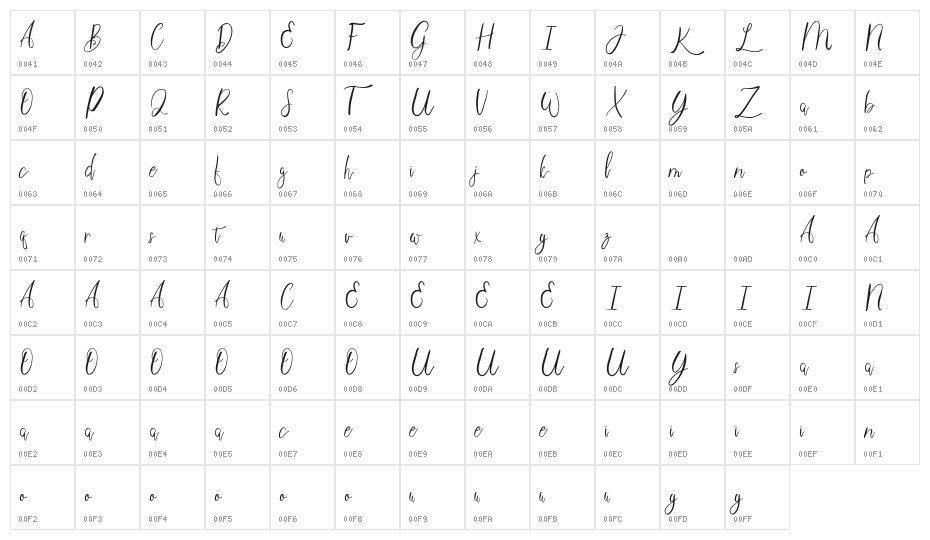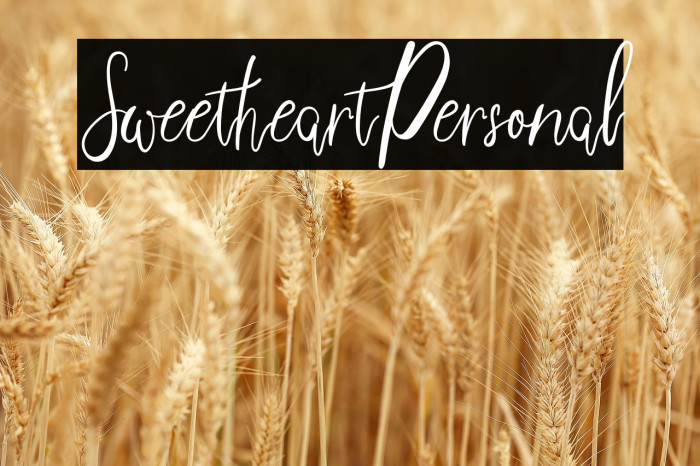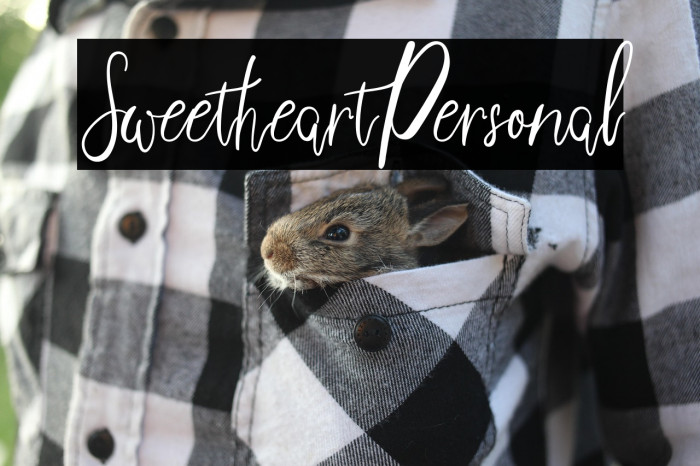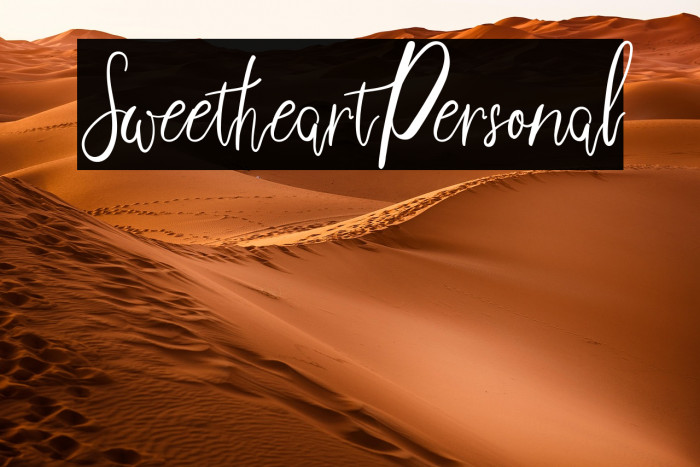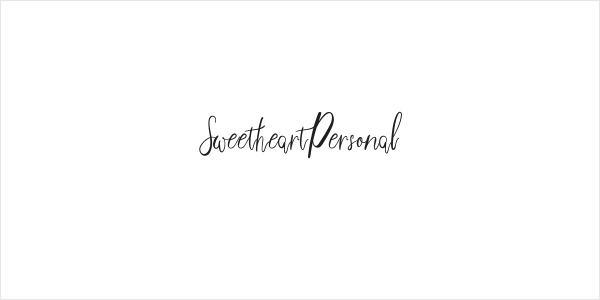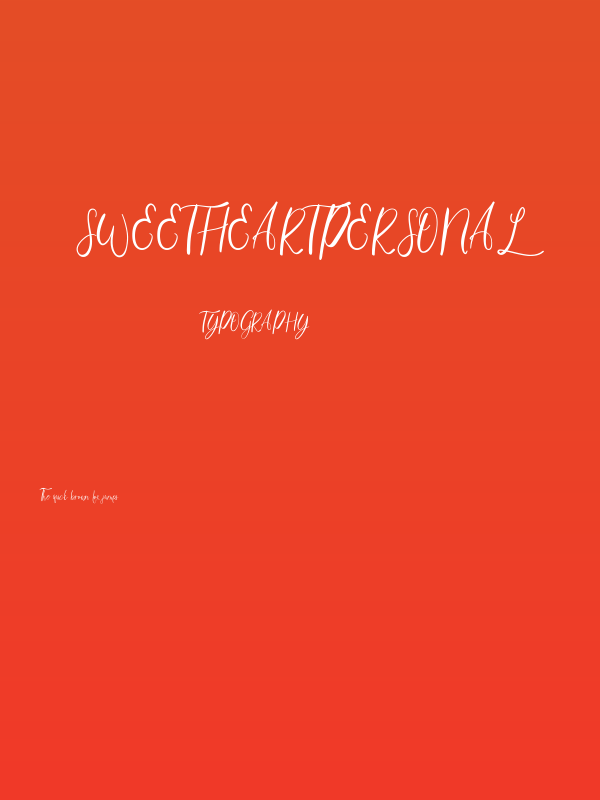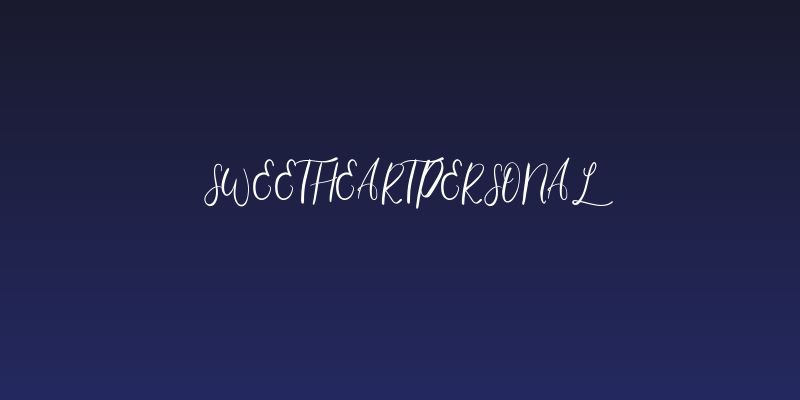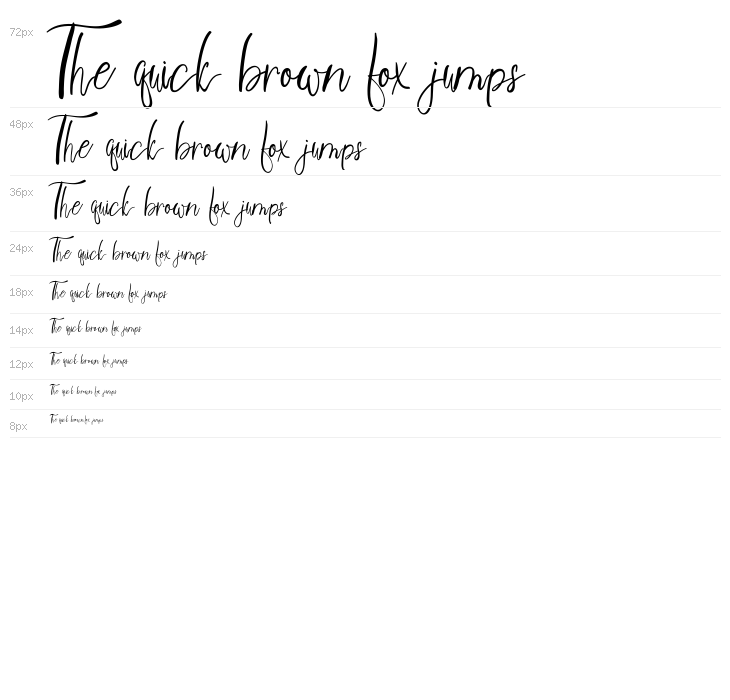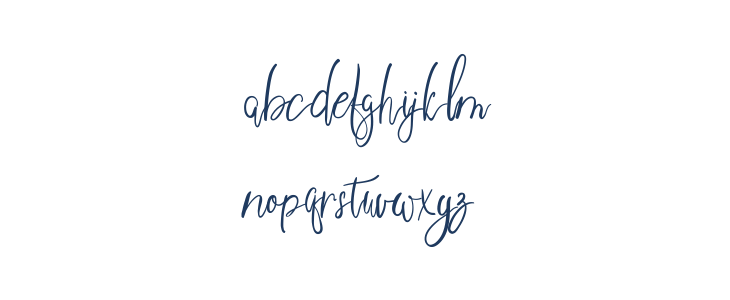
SweetheartPersonal Font
SweetheartPersonal Description
This font exudes a playful and romantic charm with its flowing, cursive script style. The letters are elegantly connected, featuring a mix of thick and thin strokes that add a dynamic and lively feel. The uppercase letters are bold and expressive, while the lowercase letters maintain a consistent flow, enhancing the overall whimsical appearance. The font's design is reminiscent of handwritten calligraphy, making it perfect for projects that require a personal touch. Its unique style is both modern and timeless, suitable for a variety of creative applications.
| Overall Style | Romantic, Playful |
| Proposed Projects | Ideal for wedding invitations, greeting cards, personal branding, and romantic-themed designs. |